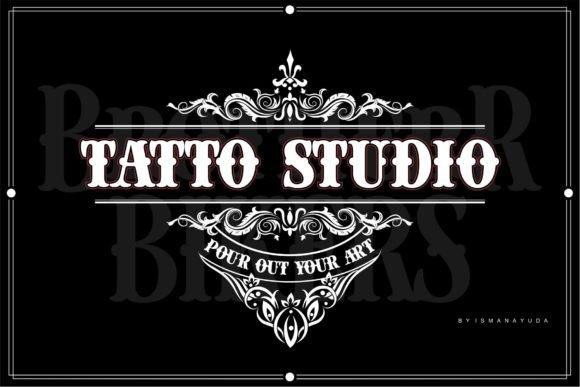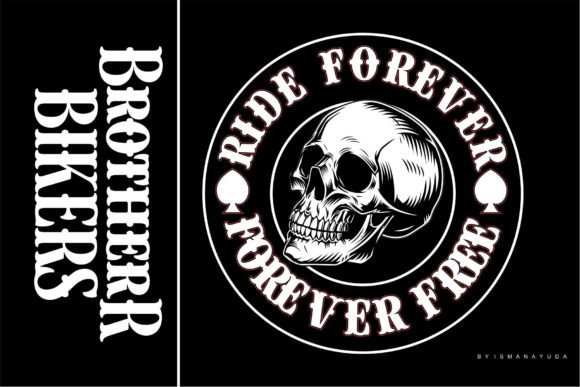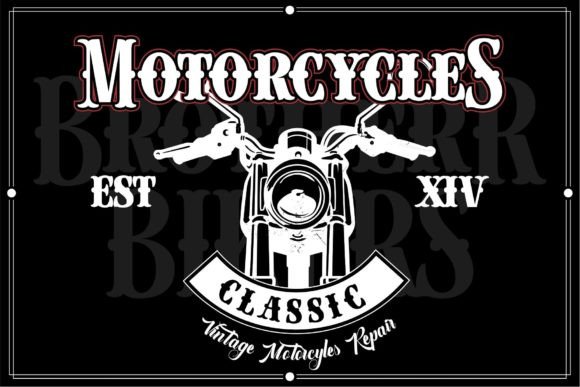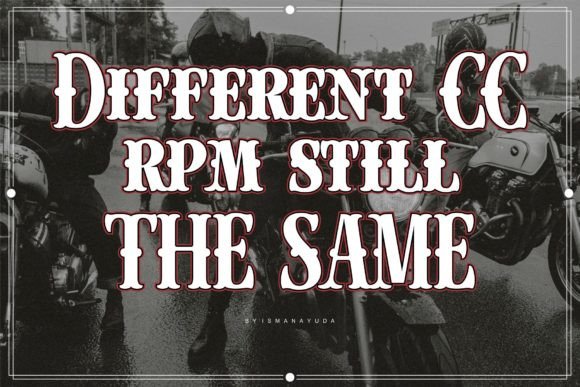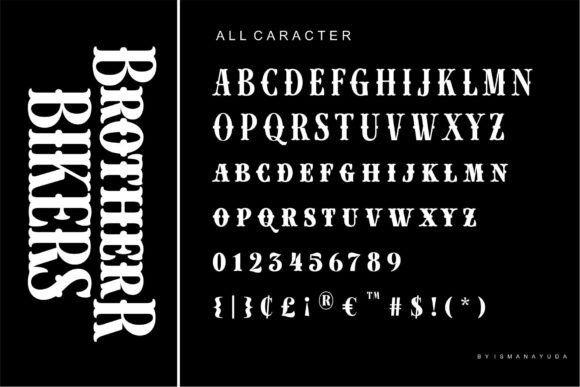
Discover the Edgy Style of Brother Bikers Font
Are you a designer or crafter looking for a unique font to give your project an edgy, rugged touch? Look no further than the Brother Bikers Font. This distinctive font is specifically designed for displaying needs or naming a community, making it perfect for a variety of applications.
What is Brother Bikers Font?
Brother Bikers Font is a carefully crafted typeface intended for use in a range of creative projects. Its rugged, bold design makes it an ideal choice for communities that want to convey a sense of strength, resilience, and camaraderie. Whether you’re working on a project for a tattoo community, a motorcycle club, or simply want to add some edge to your design, Brother Bikers Font is an excellent option.
Perfect for Community Projects
One of the key features of Brother Bikers Font is its ability to bring people together. Its bold, eye-catching design makes it perfect for use in community projects, such as:
- Tattoo community projects: Add a touch of edginess to your tattoo-inspired designs with this bold font.
- Motorcycle community projects: Show off your love for the open road with a font that’s perfect for motorcycle clubs and events.
- Barber shops: Give your barber shop posters a rugged, masculine look with Brother Bikers Font.
- Coffee shop poster displays: Add some edge to your coffee shop’s promotional materials with this unique font.
- Tattoo studios: Create striking promotional materials for your tattoo studio with Brother Bikers Font.
Why Choose Brother Bikers Font?
So why should you choose Brother Bikers Font for your next project? Here are just a few reasons:
- Unique design: Brother Bikers Font has a distinctive, one-of-a-kind design that’s sure to turn heads.
- Versatility: This font is perfect for a wide range of projects, from community displays to promotional materials.
Tips for Using Brother Bikers Font
Here are a few tips for getting the most out of Brother Bikers Font:
- Pair with bold colors: Brother Bikers Font looks great when paired with bold, vibrant colors. Try using it with bright reds, blues, or blacks to really make your design pop.
- Experiment with different sizes: This font looks great in a variety of sizes, from small text to large display pieces. Experiment with different sizes to find the one that works best for your project.
- Add some texture: Consider adding some texture to your design to give it an extra layer of depth and interest. This could include images, patterns, or other design elements.
Brother Bikers Font is a unique and versatile typeface that’s perfect for designers and crafters looking to add some edge to their projects. With its bold, rugged design and wide range of applications, it’s an excellent choice for anyone looking to create striking promotional materials or community displays. So why wait? Download Brother Bikers Font today and start creating!